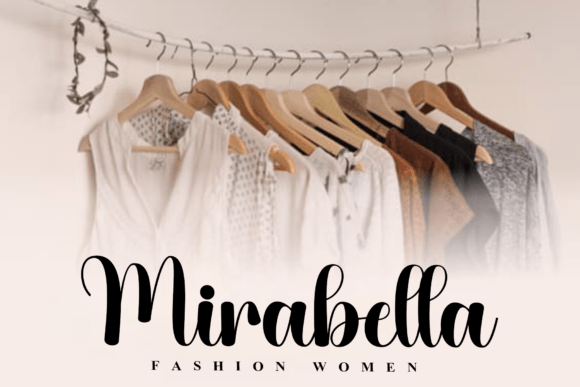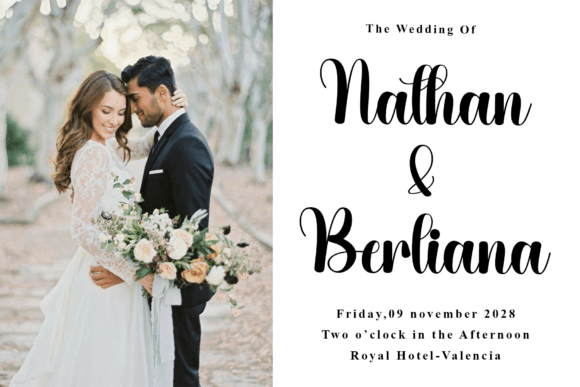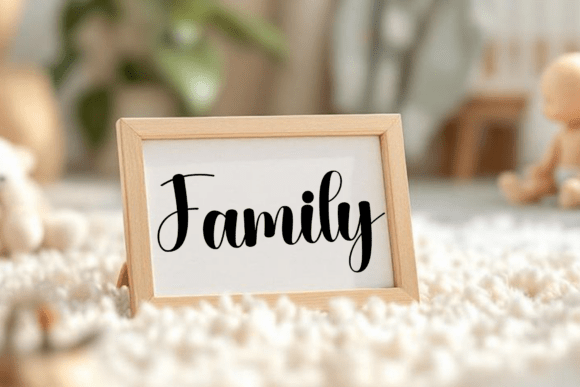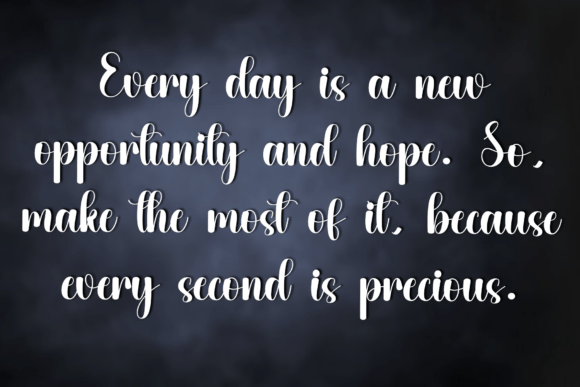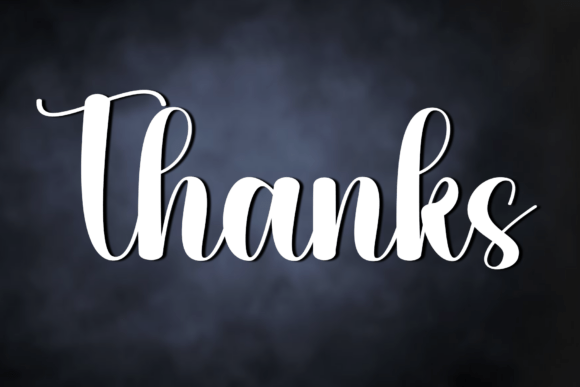
Bulky Font: Elevate Your Designs with Elegant Handwritten Script
In the world of typography, a well-crafted font can make all the difference in elevating your designs from ordinary to extraordinary. Introducing Bulky, a modern handwritten script font that combines elegance with a personal touch. With its fluid strokes and gentle curves, Bulky mimics the natural flow of real handwriting, making it perfect for a variety of creative projects.
The Charm of Handwritten Script Fonts
Handwritten script fonts have always been a popular choice among designers and crafters. They add a touch of warmth and personality to any design, making it more relatable and engaging. Bulky is no exception. Its unique blend of sophistication and accessibility makes it an ideal choice for a wide range of applications, from wedding invitations and logos to stationery and branding projects.
Key Features of Bulky Font
- Fluid Strokes: Bulky’s fluid strokes give it a natural, hand-written feel that’s perfect for creating elegant and sophisticated designs.
- Gentle Curves: The font’s gentle curves add a touch of warmth and approachability, making it perfect for designs that require a personal touch.
- Sophisticated yet Accessible: Bulky strikes the perfect balance between sophistication and accessibility, making it easy to read and understand.
- Perfect for Branding: With its unique and elegant style, Bulky is perfect for branding projects that require a touch of luxury and sophistication.
Use Cases for Bulky Font
Bulky is a versatile font that can be used in a variety of creative projects. Here are some of the most popular use cases:
- Wedding Invitations: Add a touch of elegance and sophistication to your wedding invitations with Bulky’s beautiful handwritten script.
- Logos and Branding: Create a lasting impression with Bulky’s unique and elegant style, perfect for logos and branding projects.
- Stationery: Elevate your stationery designs with Bulky’s fluid strokes and gentle curves, perfect for creating professional and personal documents.
- Instagram Quotes: Add a touch of elegance and sophistication to your Instagram quotes with Bulky’s beautiful handwritten script.
- Print Designs: Whether you’re creating minimalist artwork or luxurious prints, Bulky adds a graceful and human element to any project.
Why Choose Bulky Font?
With so many fonts available, why choose Bulky? Here are just a few reasons why Bulky stands out from the crowd:
- Unique Style: Bulky’s unique blend of elegance and personality makes it a standout font that’s sure to grab attention.
- Readability: Despite its elegant style, Bulky is easy to read and understand, making it perfect for designs that require a clear message.
- Versatility: Bulky can be used in a wide range of creative projects, from wedding invitations to branding projects.
- High-Quality Design: Bulky is designed with high-quality craftsmanship in mind, ensuring that your designs look professional and polished.
In conclusion, Bulky is a modern handwritten script font that combines elegance with a personal touch. With its fluid strokes and gentle curves, Bulky is perfect for a variety of creative projects, from wedding invitations to branding projects. Its unique blend of sophistication and accessibility makes it an ideal choice for designers and crafters looking to elevate their designs. Whether you’re creating minimalist artwork or luxurious prints, Bulky adds a graceful and human element to any project.